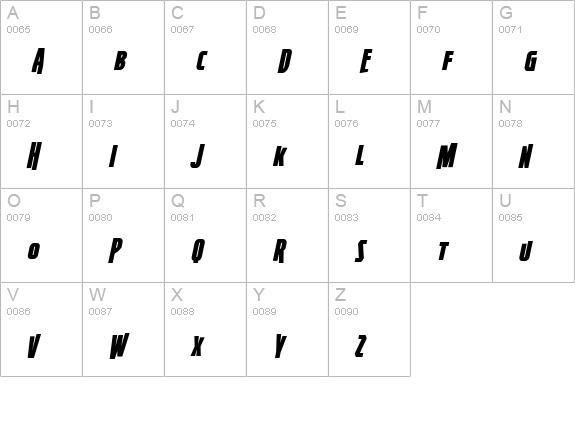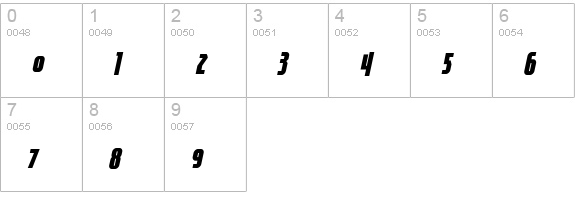
Firepower BB Italic Font Details
Firepower BB Italic is a distinctive, italic variant in the Firepower typeface family \xE2\x80\x94 well suited to design and typography projects.
Firepower BB Italic font is a dynamic and striking typeface that exudes power and energy. With its bold and slanted design, this font is perfect for creating eye-catching headlines, posters, and logos. The italicized letters add a touch of elegance and sophistication to any project. What makes Firepower BB Italic font even more appealing is that it is available for free download at FontsMarket.com. This means you can easily access this powerful font and use it in your designs without any cost. Don't miss out on the opportunity to enhance your projects with the impactful Firepower BB Italic font - download it for free today!